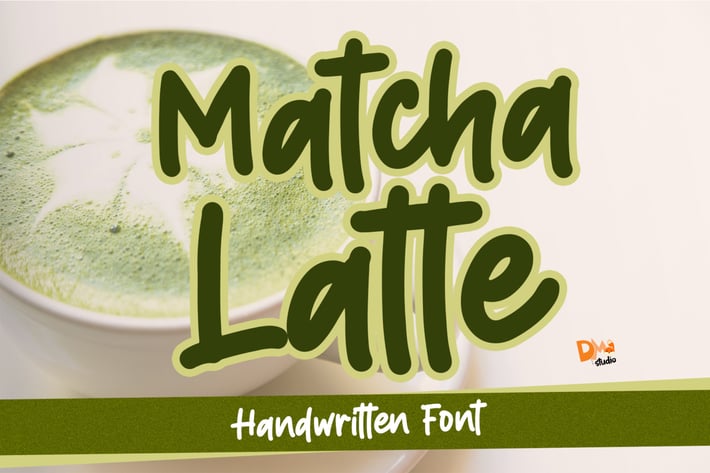
Matcha Latte - Handwritten Font
Matcha Latte Handwritten Font
Matcha Latte is a bold, casual yet expressive handwritten font. Versatile for any usage, for sweet or manly style!